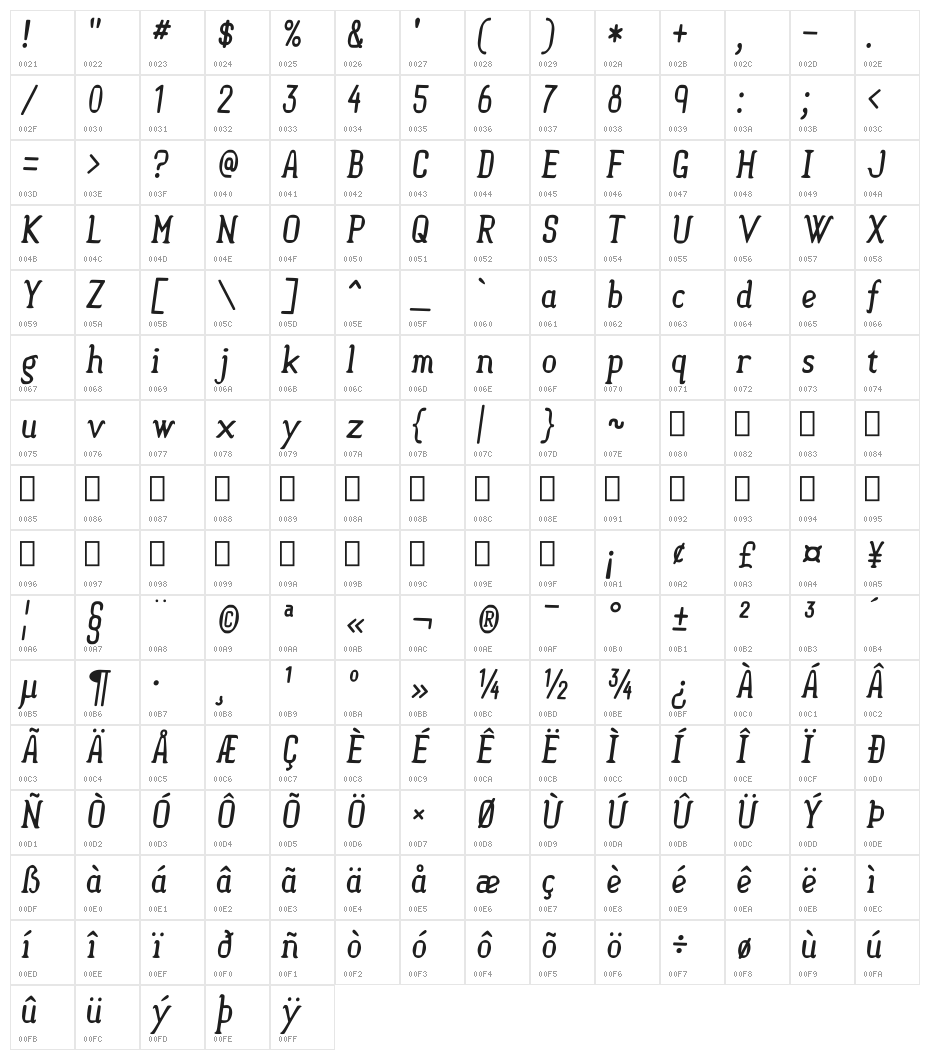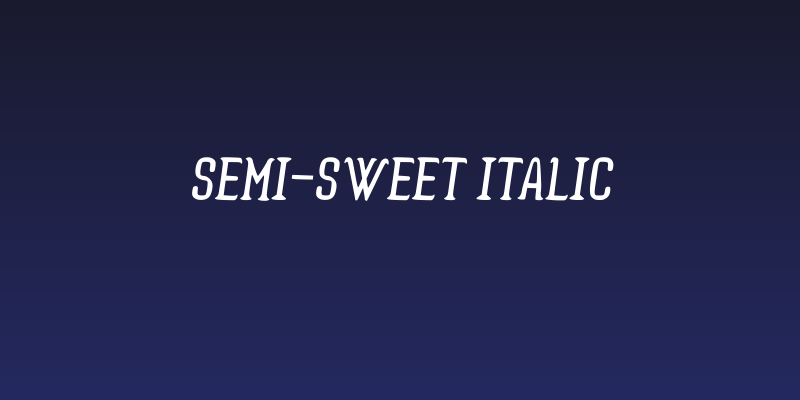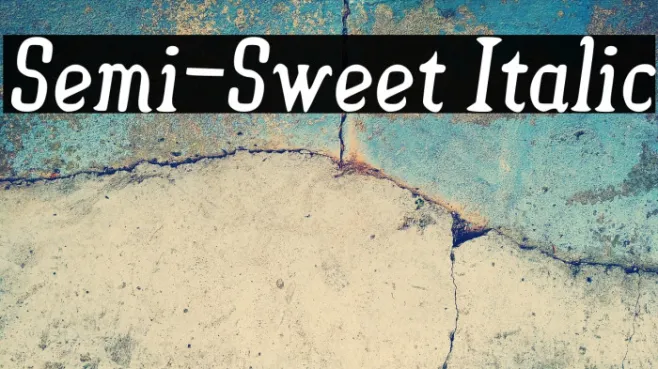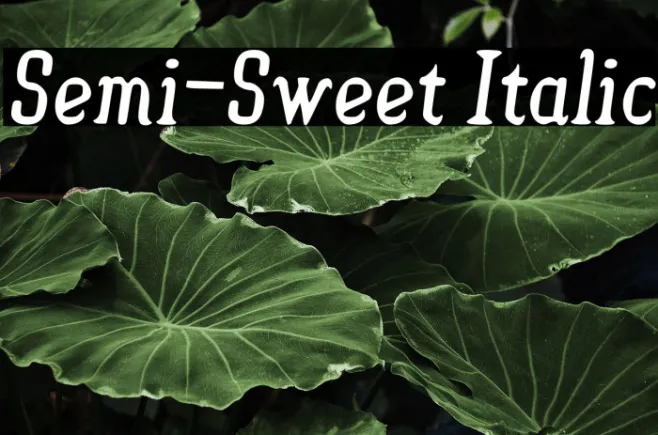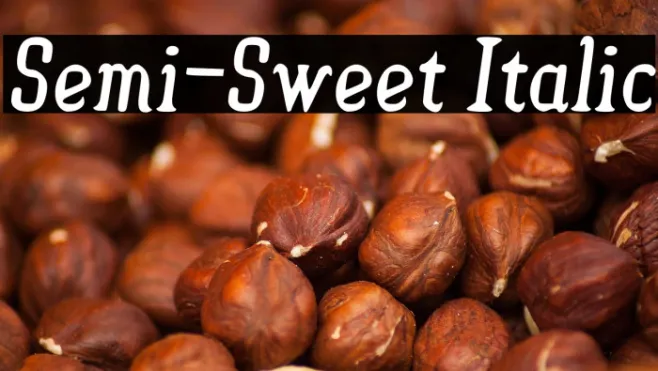
Semi-Sweet Italic Font
Semi-Sweet Italic Description
This font exhibits a playful and informal style with a slight slant, giving it an italic appearance. The characters are rounded and have a hand-drawn quality, which adds a touch of whimsy and friendliness. The strokes are consistent in thickness, providing a balanced look that is easy on the eyes. The uppercase letters are bold and prominent, while the lowercase letters maintain a smooth flow, enhancing readability. The numerals are clear and distinct, making them suitable for various applications. Special characters are well-integrated, maintaining the overall aesthetic of the font.
| Use Case | Headlines, Logos, Casual text |
| Proposed Projects | Ideal for children's books, casual invitations, greeting cards, and playful branding projects. |